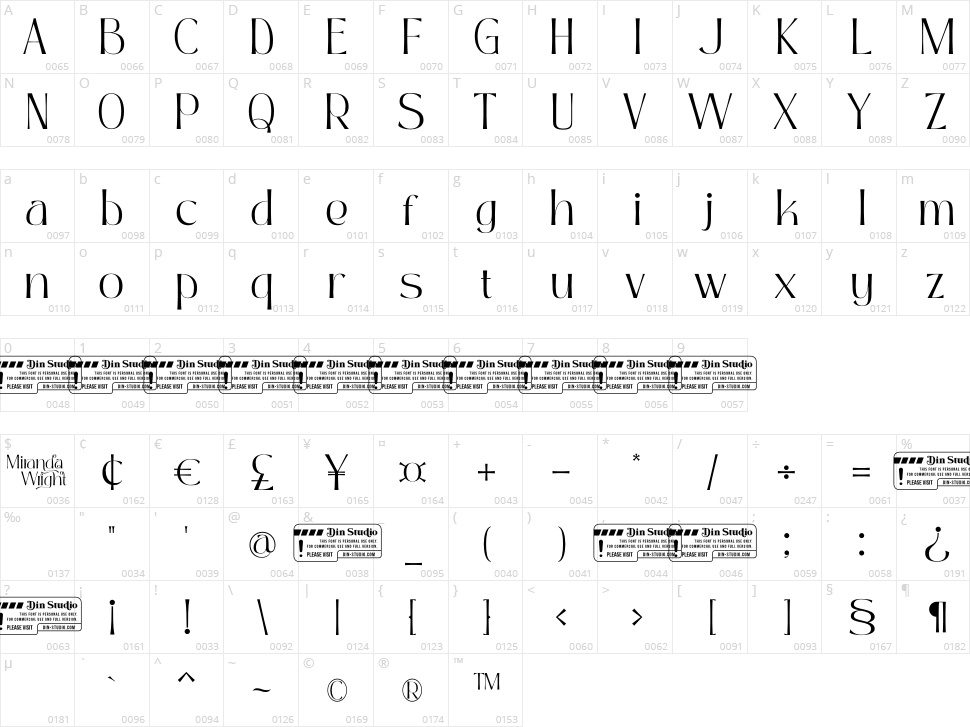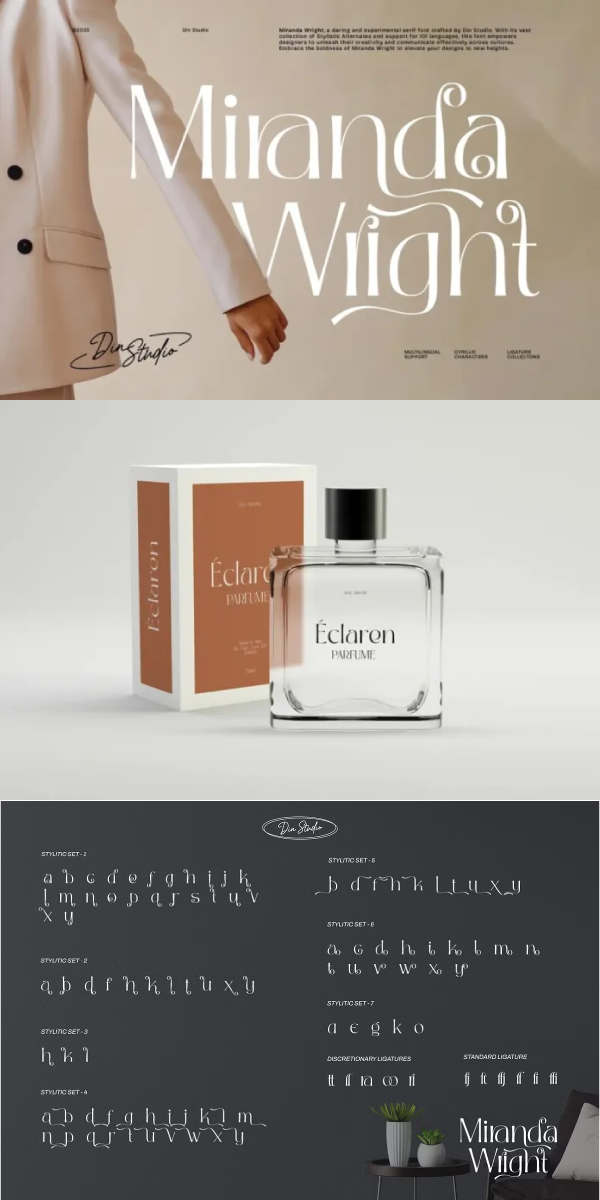
Miranda Wright
Miranda Wright is a captivating serif font designed in an exquisite and elegant style. What sets Miranda Wright apart are the last few letters, which feature graceful circular swings that add a touch of charm and uniqueness to the font.